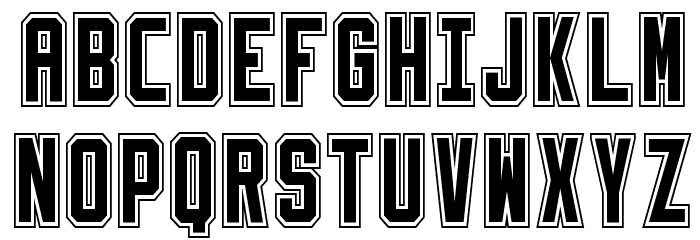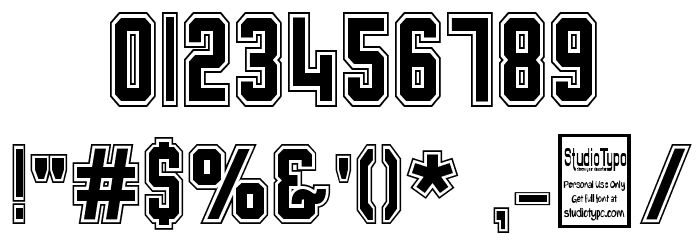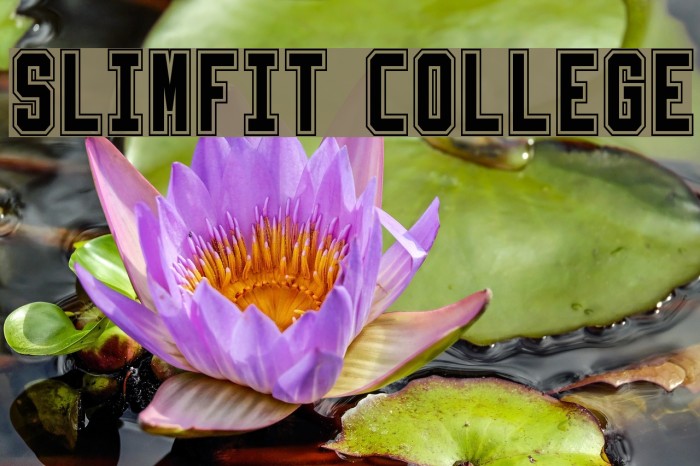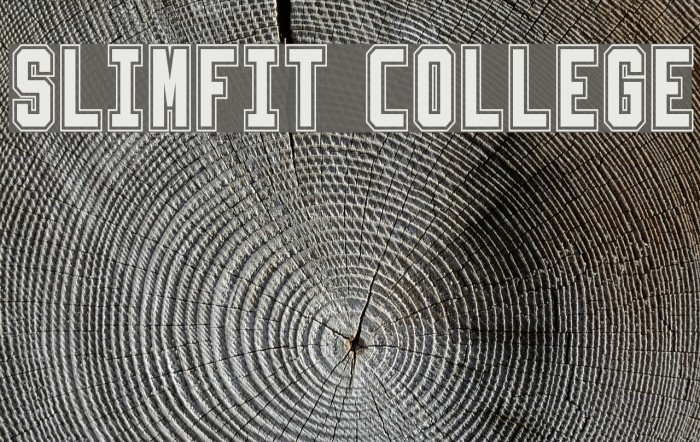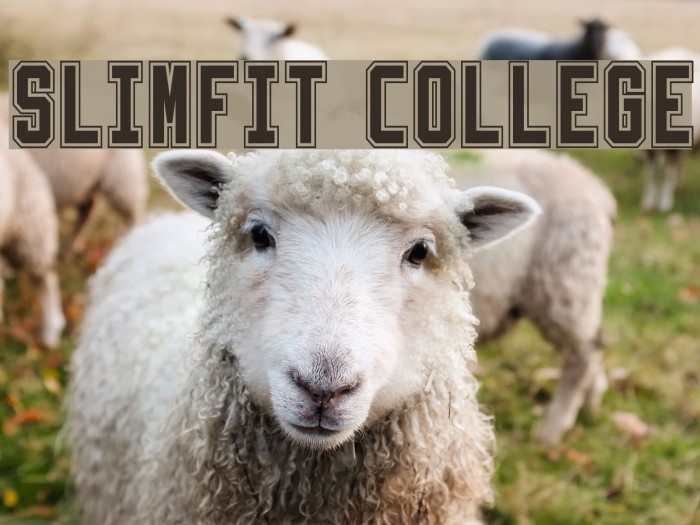
Slimfit College Font
This font features a bold, collegiate style with a strong, impactful presence. The characters are outlined, giving them a three-dimensional effect that enhances their visibility and appeal. The uppercase letters are uniform in height, with sharp, angular edges that convey a sense of strength and tradition. The numbers and special characters maintain the same bold outline, ensuring consistency across all elements. This font is ideal for projects that require a classic yet dynamic look, such as sports team branding or university merchandise.
A bold, outlined collegiate-style font with a strong, impactful presence.
- Proposed Projects: Ideal for sports team branding, university merchandise, posters, and event promotions.
- Category: Decorative/Display
- Contrast: High
- Overall Style: Classic